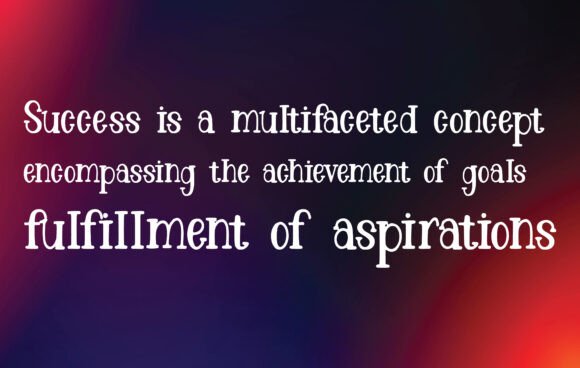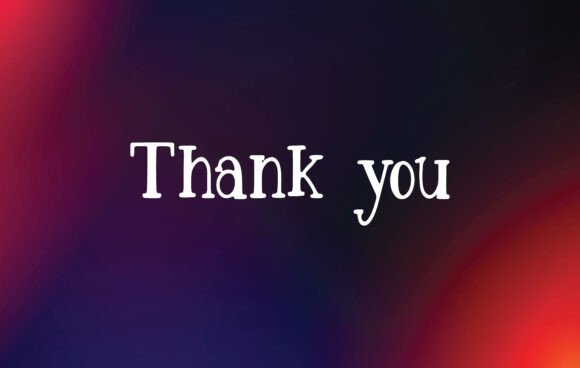
Introducing Firecracker Font: The Ultimate Addition to Your Typography Collection
Are you tired of using the same old fonts in your creative projects? Look no further! Firecracker Font is here to revolutionize your typography game with its perfect blend of style, versatility, and readability. This stunning font is designed to become a go-to favorite in your collection, offering a wide range of possibilities for elevating your designs.
A Font that’s Easy to Read and Versatile
One of the standout features of Firecracker Font is its exceptional readability. Whether you’re using it for titles or body text, this font is clear and easy to read, making it perfect for a variety of applications. Its versatility is another major advantage, allowing you to use it across different mediums and projects. From magazine headlines to t-shirts, social media posts, branding materials, wedding invitations, and greeting cards, Firecracker Font fits right in.
Firecracker Font is a dream come true for designers and crafters looking to add a touch of personality to their work. With its unique style and adaptability, this font can help you create stunning visual content that stands out from the crowd. Whether you’re working on a commercial project or a personal craft, Firecracker Font is the perfect choice for anyone looking to elevate their typography.
Use Firecracker Font for:
- Magazine Headlines: Create eye-catching headlines that grab attention and draw readers in.
- T-Shirts and Merchandise: Add a personal touch to your apparel and merchandise with this stylish font.
- Social Media Posts: Make your social media posts stand out with Firecracker Font’s unique style.
- Branding Materials: Use this font to create consistent and recognizable branding across all your marketing materials.
- Wedding Invitations: Add a touch of elegance and sophistication to your wedding invitations.
- Greeting Cards: Create beautiful and personalized greeting cards for any occasion.
Why Choose Firecracker Font?
So, what sets Firecracker Font apart from other fonts? Here are just a few reasons why you should consider adding it to your collection:
- Unique Style: Firecracker Font has a distinctive style that’s sure to make your designs stand out.
- Exceptional Readability: This font is easy to read, even at small sizes.
- Versatility: Use Firecracker Font across different mediums and projects.
- Elegant and Sophisticated: This font adds a touch of elegance and sophistication to any design.